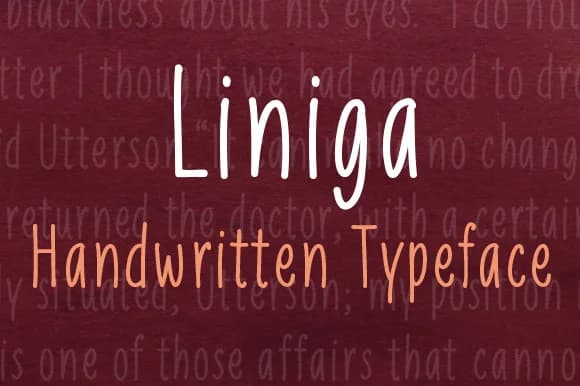
Liniga Serif Font by Graphite is a script typeface that merges handwritten character with serif refinement, creating a sophisticated aesthetic that feels warm and individual without sacrificing polish. The flowing strokes and tapered letterforms convey both elegance and approachability, making it a compelling choice for brands and designers seeking distinction alongside formality.
This font shines in applications where personality and professionalism must coexist. Wedding invitation stationery suites benefit tremendously from its refined elegance and hand-crafted sensibility. Luxury beauty and skincare packaging gain a boutique quality from its graceful forms, while book covers and literary journals leverage its distinctive character to communicate sophistication to readers. Restaurant menus, wine labels, and upscale product branding all find enhanced storytelling potential in its flowing letterforms. The font also serves social media headers and creative branding projects well, helping design work stand out among competitive visual feeds.
Liniga Serif Font is a script font that shines as a display or heading face. Pair it with a clean sans-serif or serif font for body text β the contrast creates a clear hierarchy while the two styles stay balanced and easy to read.